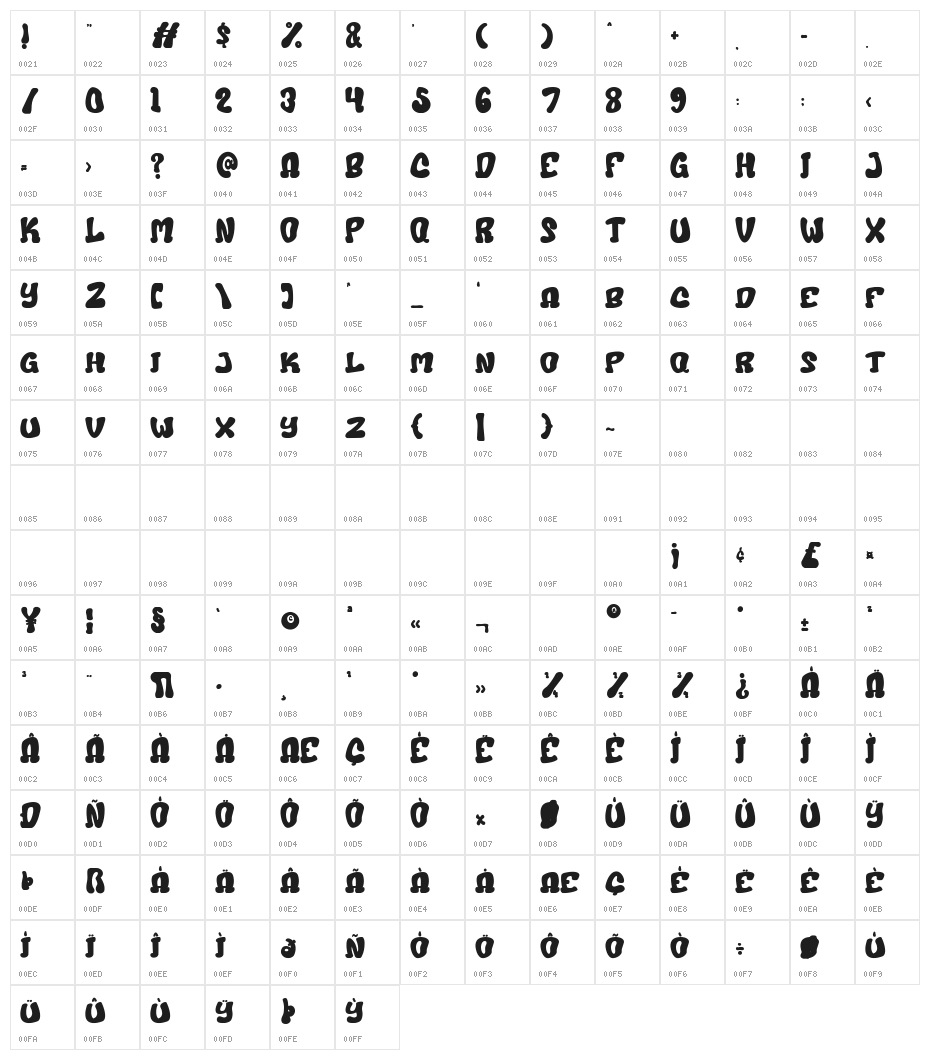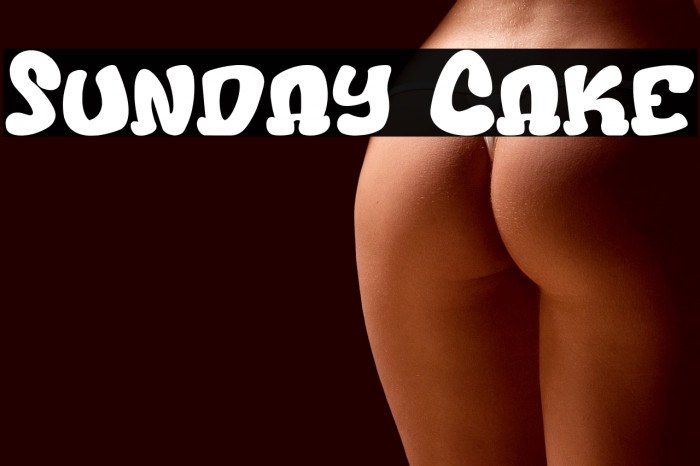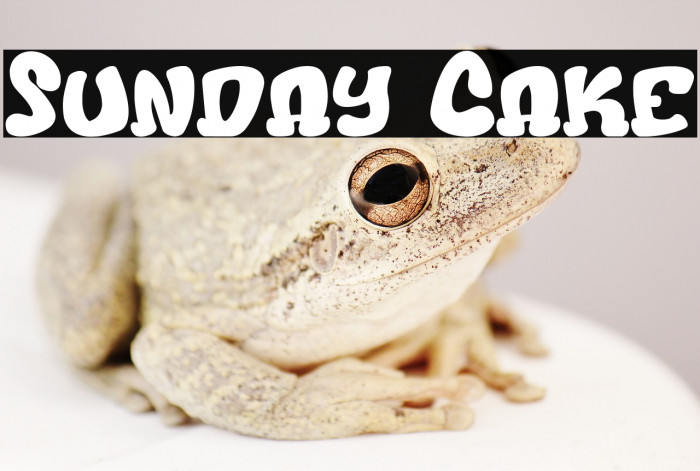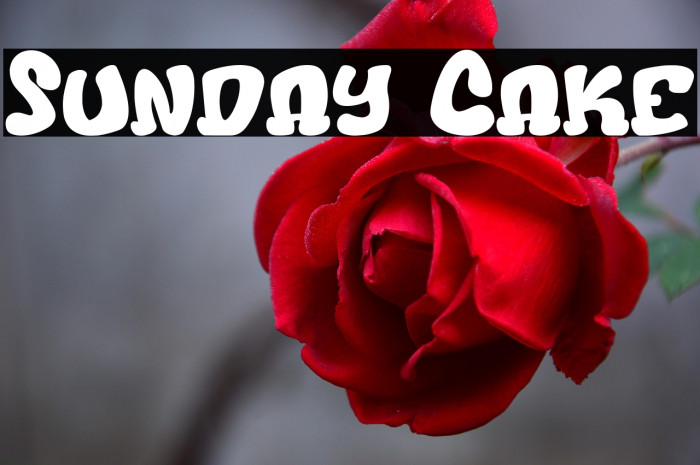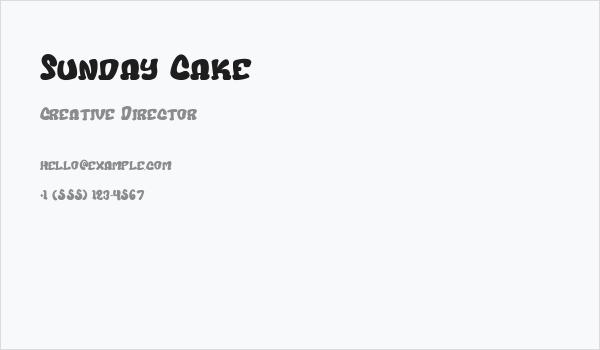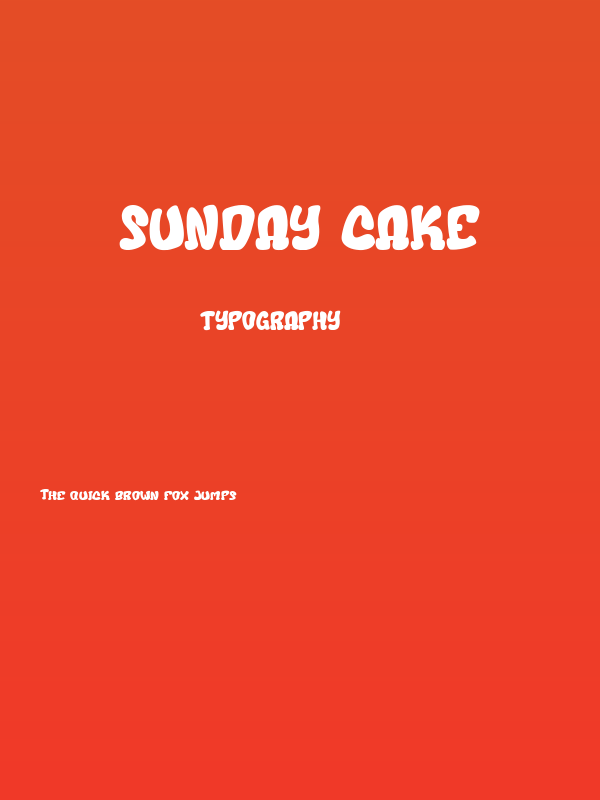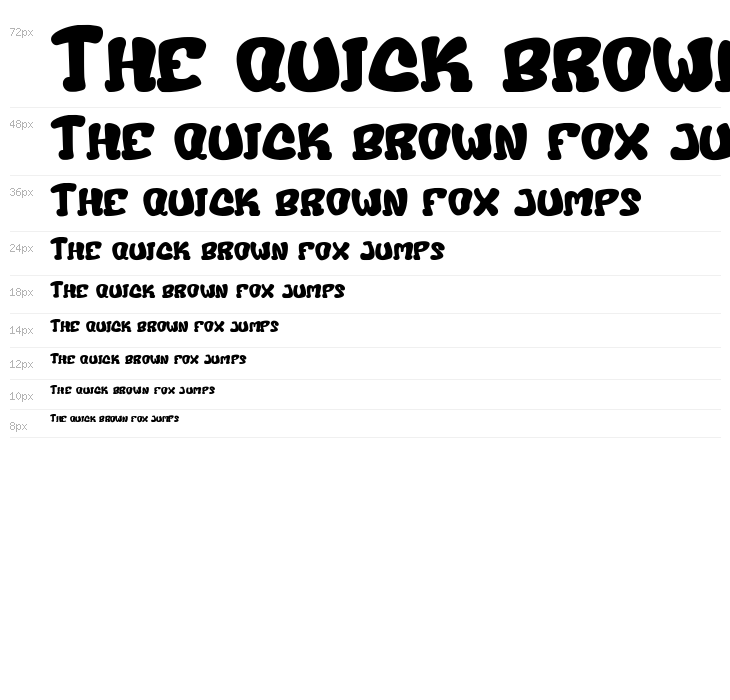
Sunday Cake Font
Sunday Cake Description
This playful and bold font features rounded, bubbly characters that exude a sense of fun and whimsy. The letters are thick and have a soft, almost cartoon-like appearance, making them highly distinctive and eye-catching. The font maintains a consistent weight throughout, with smooth curves and a slightly irregular baseline that adds to its charm. The numbers and special characters follow the same playful style, ensuring a cohesive look across all text elements. This font is perfect for projects that require a lighthearted and informal touch.
| Proposed Projects | Ideal for children's books, party invitations, playful branding, and casual social media graphics. |